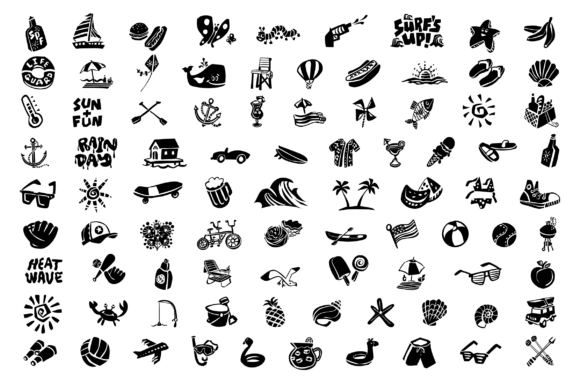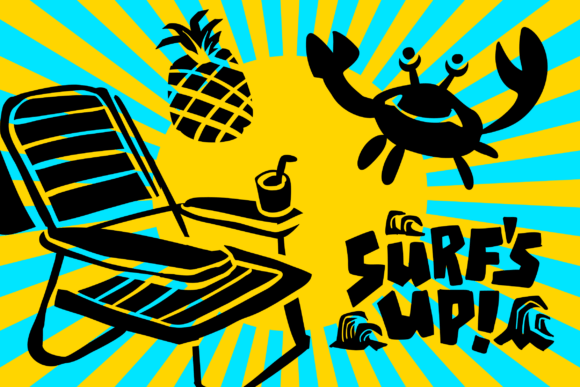
Heat Wave Font: Bringing Sunny Nostalgia to Your Designs
Are you looking for a way to add a playful touch to your designs and evoke the carefree spirit of summer? Look no further than Heat Wave, a retro-inspired collection of summery symbols that’s sure to infuse your projects with a radiant, upbeat ambiance. In this article, we’ll dive into the world of Heat Wave Font and explore how you can use it to bring warmth and joy to your creative undertakings.
What is Heat Wave Font?
Heat Wave Font is a unique and vibrant collection of symbols that capture the essence of summer fun. With its retro-inspired design, this font is perfect for adding a nostalgic touch to any project, from event announcements to social media graphics. Whether you’re a designer, crafter, or simply someone who loves to get creative, Heat Wave Font is sure to become your go-to choice for adding a dash of summer sunshine to your work.
The Power of Retro-Inspired Design
Retro-inspired design has become increasingly popular in recent years, and for good reason. By incorporating vintage elements into your designs, you can create a sense of nostalgia and timelessness that’s hard to achieve with modern design alone. Heat Wave Font takes this concept to the next level by combining classic summer symbols with a bold, playful aesthetic that’s sure to grab attention.
How to Use Heat Wave Font in Your Designs
One of the best things about Heat Wave Font is its versatility. Whether you’re creating a summer-themed event announcement, designing a set of social media graphics, or simply looking for a fun way to add some personality to your blog posts, this font is sure to fit the bill. Here are a few ideas to get you started:
- Use Heat Wave Font to create eye-catching event announcements for summer festivals, concerts, or parties.
- Add a playful touch to your social media graphics with custom illustrations and icons created using Heat Wave Font.
- Infuse your blog posts with a summer vibe by using Heat Wave Font to highlight key points or add visual interest to your text.
The Benefits of Using Heat Wave Font
So why choose Heat Wave Font over other design elements? Here are just a few benefits of using this unique and versatile font:
- Instant summer vibe: With Heat Wave Font, you can instantly add a summer vibe to your designs, without having to spend hours searching for the perfect images or graphics.
- Customizable: With Heat Wave Font, you can customize your designs to fit your unique style and branding. Experiment with different colors, textures, and layouts to create a look that’s all your own.
Tips and Tricks for Getting the Most Out of Heat Wave Font
To help you get the most out of Heat Wave Font, here are a few tips and tricks to keep in mind:
- Experiment with different colors: Heat Wave Font looks great in a variety of colors, from bright and bold to soft and pastel. Experiment with different hues to find the perfect look for your design.
- Mix and match symbols: Don’t be afraid to mix and match different symbols from the Heat Wave Font collection to create a unique and eye-catching design.
- Use it sparingly: While Heat Wave Font is certainly attention-grabbing, it’s best used sparingly to avoid overwhelming your design. Try using it to highlight key points or add visual interest to your text.
| Author | Ben Dunkle |
Heat Wave Font is a game-changer for designers and crafters looking to add a playful touch to their work. With its retro-inspired design and versatile collection of summery symbols, this font is sure to infuse your projects with a radiant, upbeat ambiance that’s perfect for summer. Whether you’re creating event announcements, social media graphics, or simply looking for a fun way to add some personality to your blog posts, Heat Wave Font is the perfect choice. So why wait? Download Heat Wave Font today and start bringing the sunshine to your designs!